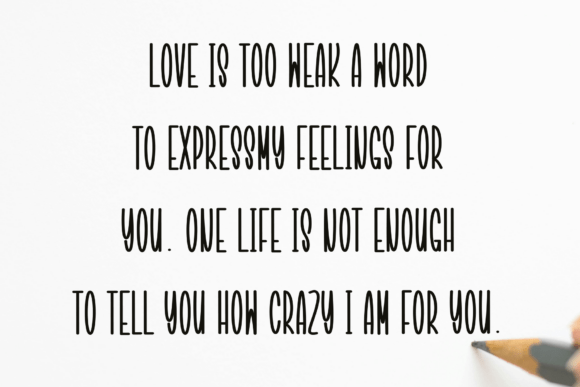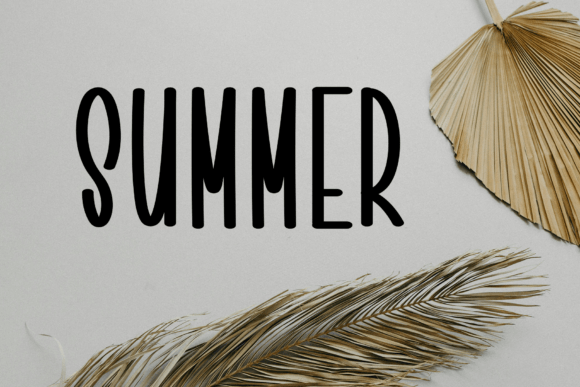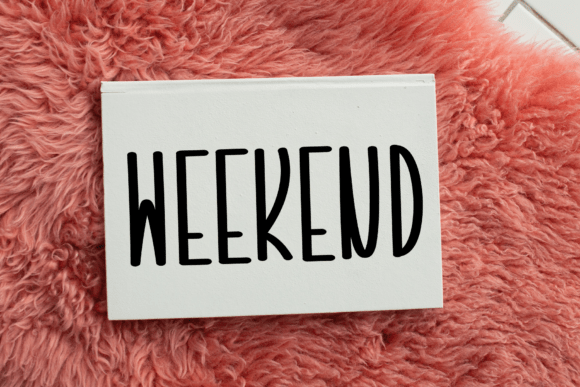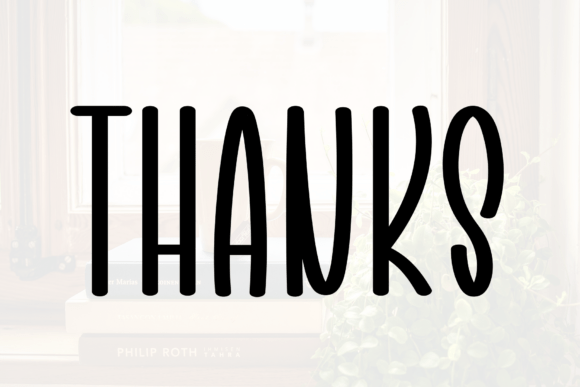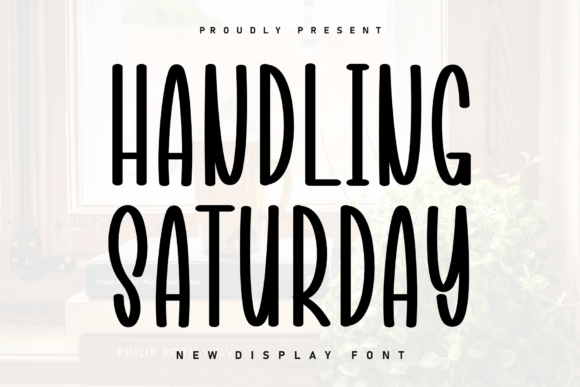
Introducing Handling Saturday Font: The Perfect Blend of Elegance and Casualness
Are you a designer or crafter looking for a font that exudes luxury, elegance, and a touch of casualness? Look no further than Handling Saturday Font, a beautiful handwritten font that is sure to elevate your designs to the next level. In this article, we’ll dive into the world of Handling Saturday Font, exploring its unique features, uses, and benefits.
What is Handling Saturday Font?
Handling Saturday Font is a stunning handwritten font that mimics the look of being drawn with a marker. Its relaxed and sporty feel makes it an ideal choice for a wide range of design projects, from branding and logos to wedding supplies, greeting cards, and marketing promotions.
Key Features of Handling Saturday Font
• Handwritten with a marker feel: Handling Saturday Font has a unique, handcrafted look that gives it a personal touch.
• Relaxed and sporty feel: This font strikes the perfect balance between elegance and casualness, making it suitable for various design projects.
• Luxurious and elegant: Despite its casual feel, Handling Saturday Font still manages to convey a sense of luxury and sophistication.
Uses of Handling Saturday Font
Handling Saturday Font is incredibly versatile and can be used in a variety of design projects, including:
• Branding and logos: Create a lasting impression with a custom logo that incorporates Handling Saturday Font.
• Wedding supplies: Add a touch of elegance to your wedding stationery, invitations, and decorations.
• Greeting cards: Create beautiful, heartfelt greeting cards for special occasions.
• Fashion and lookbooks: Use Handling Saturday Font to add a stylish touch to your fashion designs and lookbooks.
• Marketing promotions: Elevate your marketing materials with a font that exudes luxury and sophistication.
Benefits of Using Handling Saturday Font
So, why choose Handling Saturday Font for your design projects? Here are just a few benefits:
• Unique and eye-catching: Handling Saturday Font is sure to grab attention and set your designs apart.
• Versatile: This font can be used in a wide range of design projects, from formal to informal.
• Elegant yet casual: Handling Saturday Font strikes the perfect balance between sophistication and approachability.
Tips for Using Handling Saturday Font
To get the most out of Handling Saturday Font, here are a few tips to keep in mind:
• Pair with complementary fonts: Experiment with pairing Handling Saturday Font with other fonts to create a unique look.
• Use in combination with images: Add visual interest to your designs by combining Handling Saturday Font with high-quality images.
• Experiment with colors and textures: Don’t be afraid to try out different colors and textures to add depth and interest to your designs.